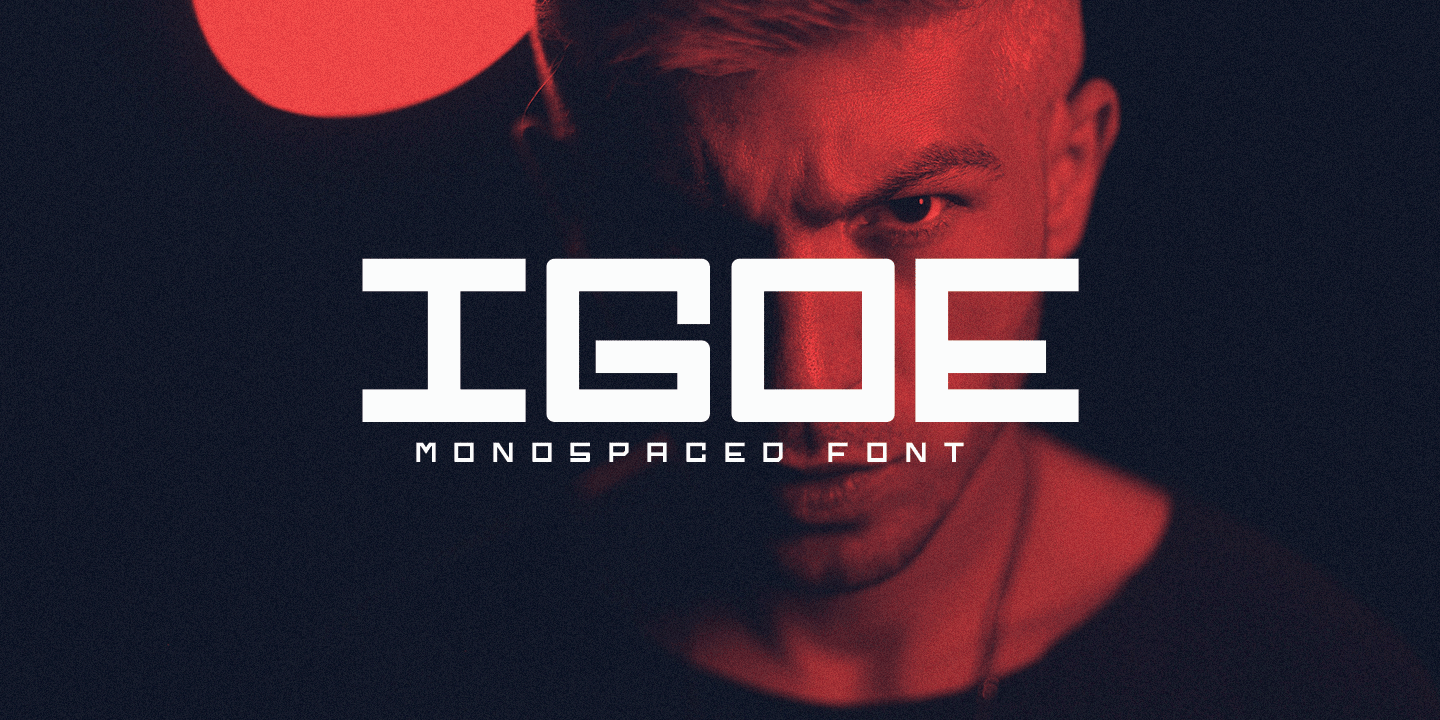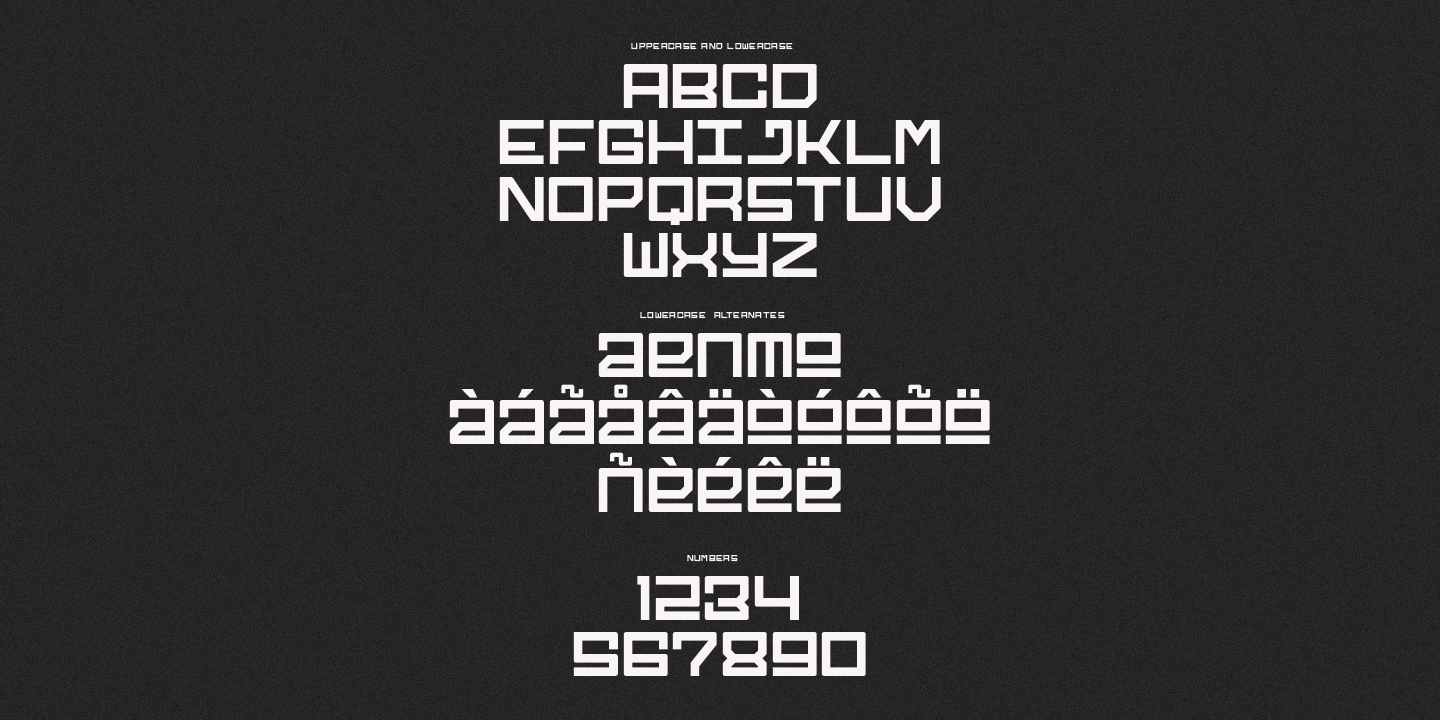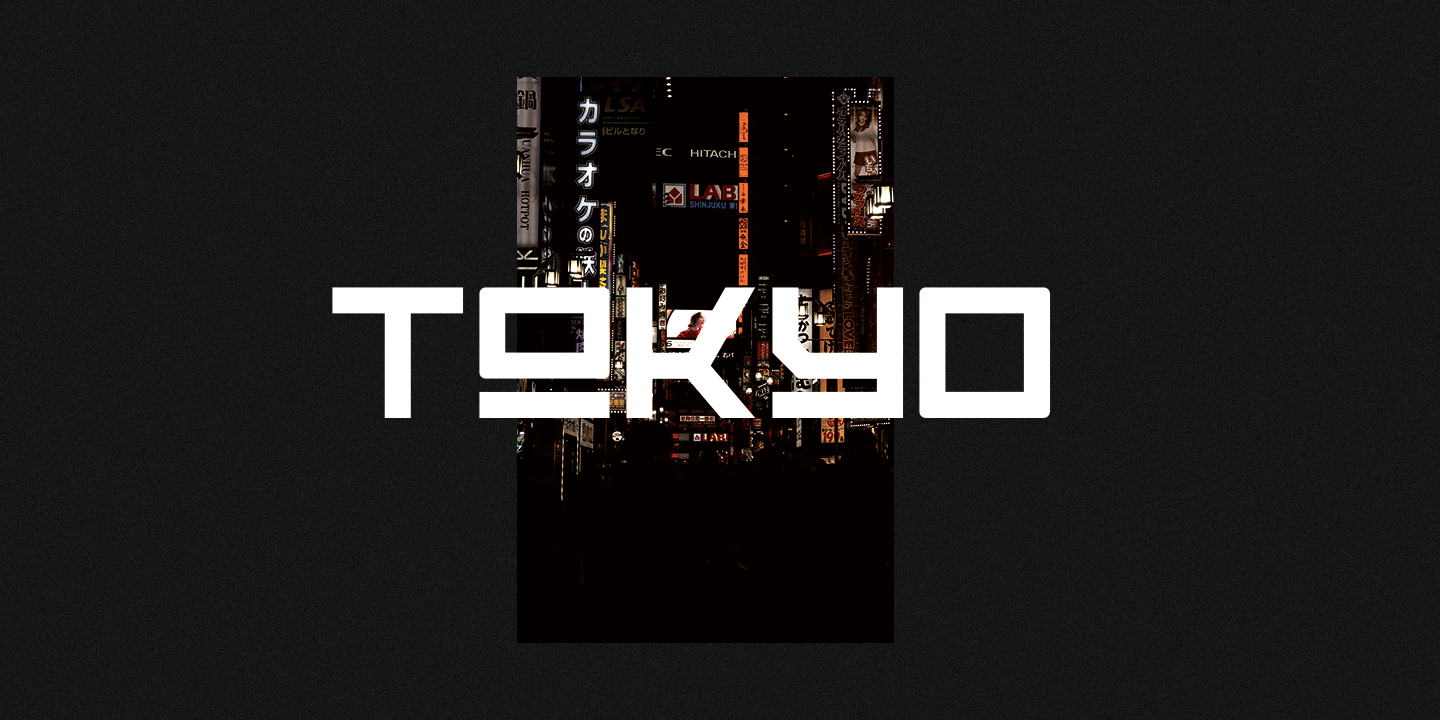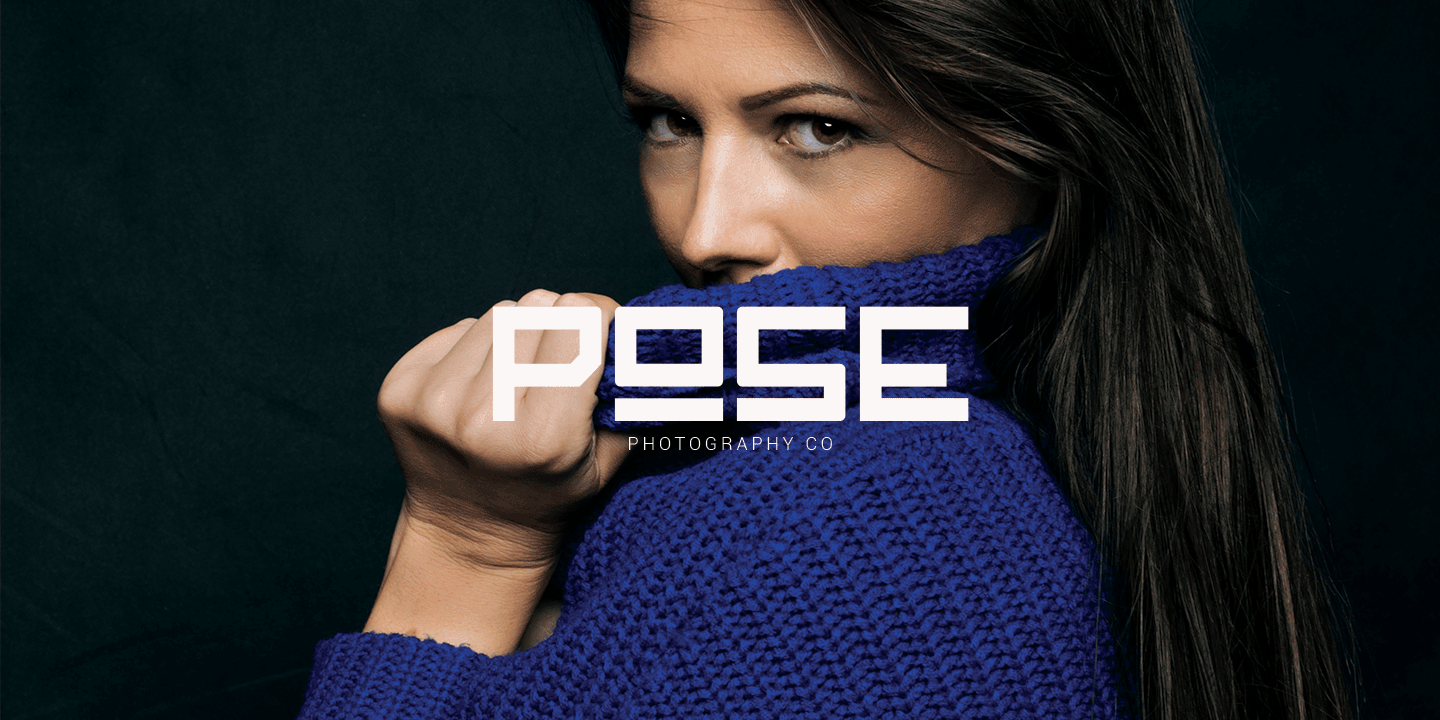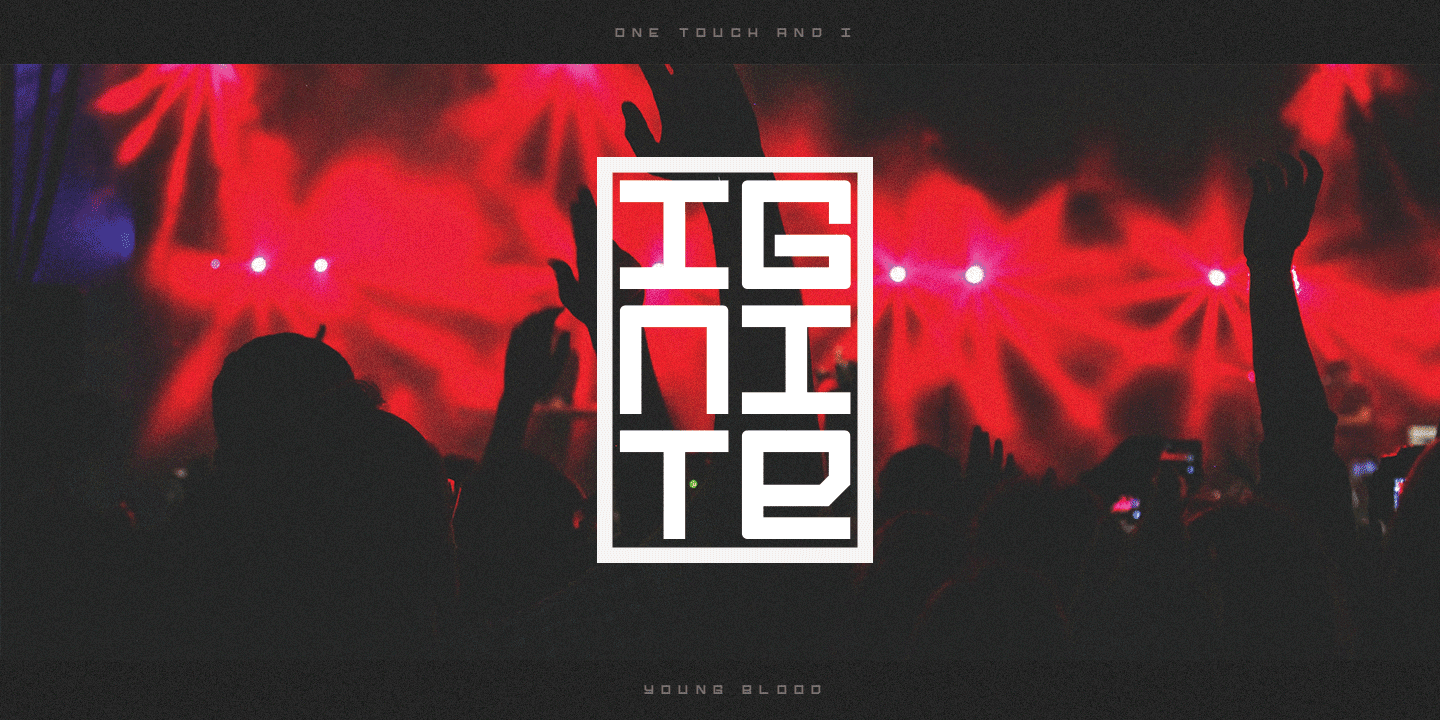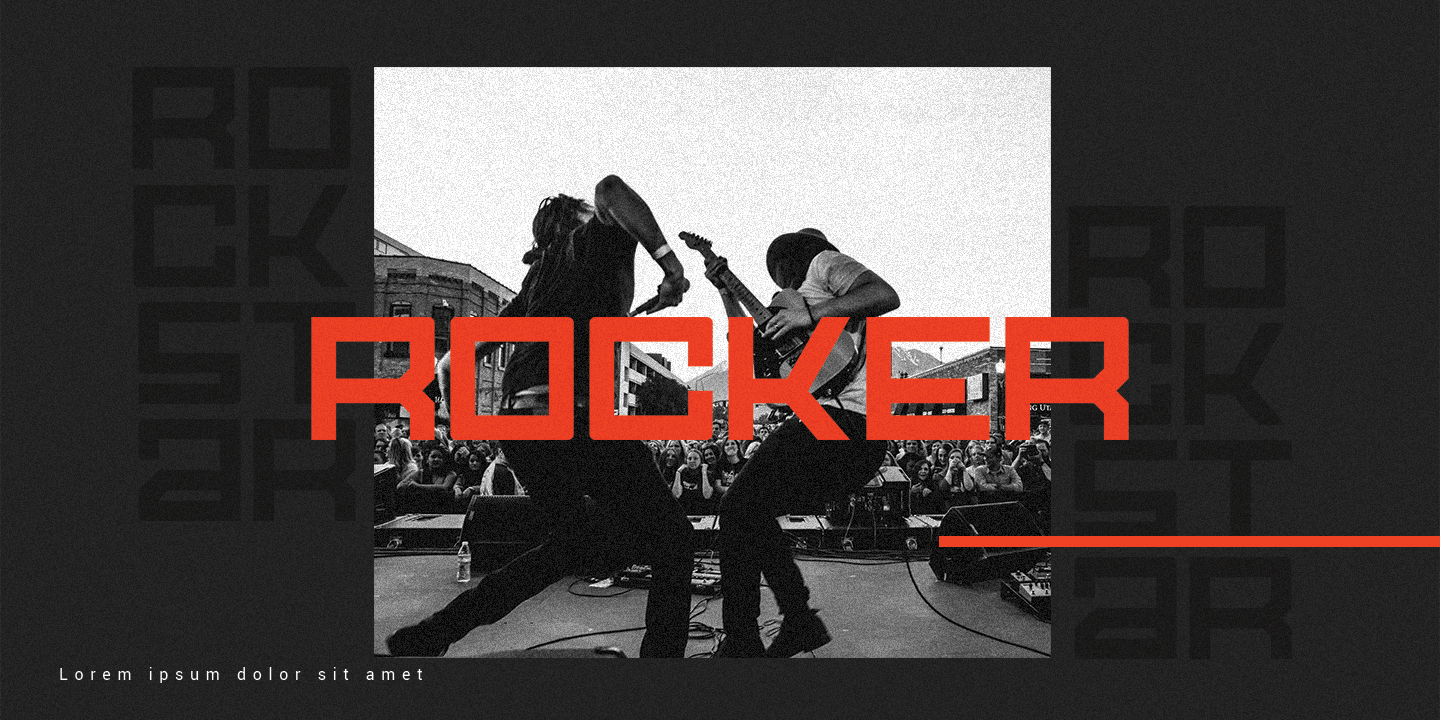
Igoe is a monospaced font gives the impression of being clean and modern,
It's Perfect forlogos, posters, album covers, and website headers.
Igoe, A monospaced font, offers you:
- Igoe - A monospaced font including Upper & Lowercase characters(ALL CAPS),
- Stylistic alternates Character
- Supports Multi linguage (Latin Western Europe), Numbers and Punctuation